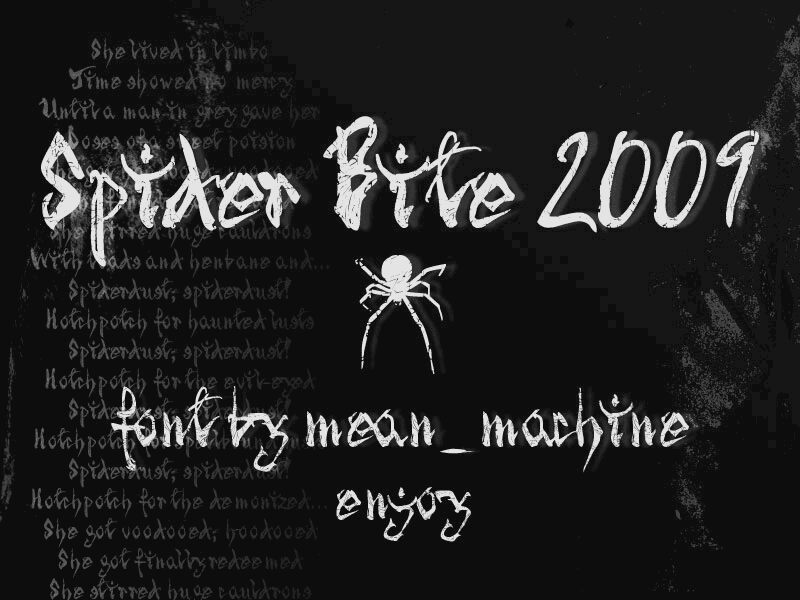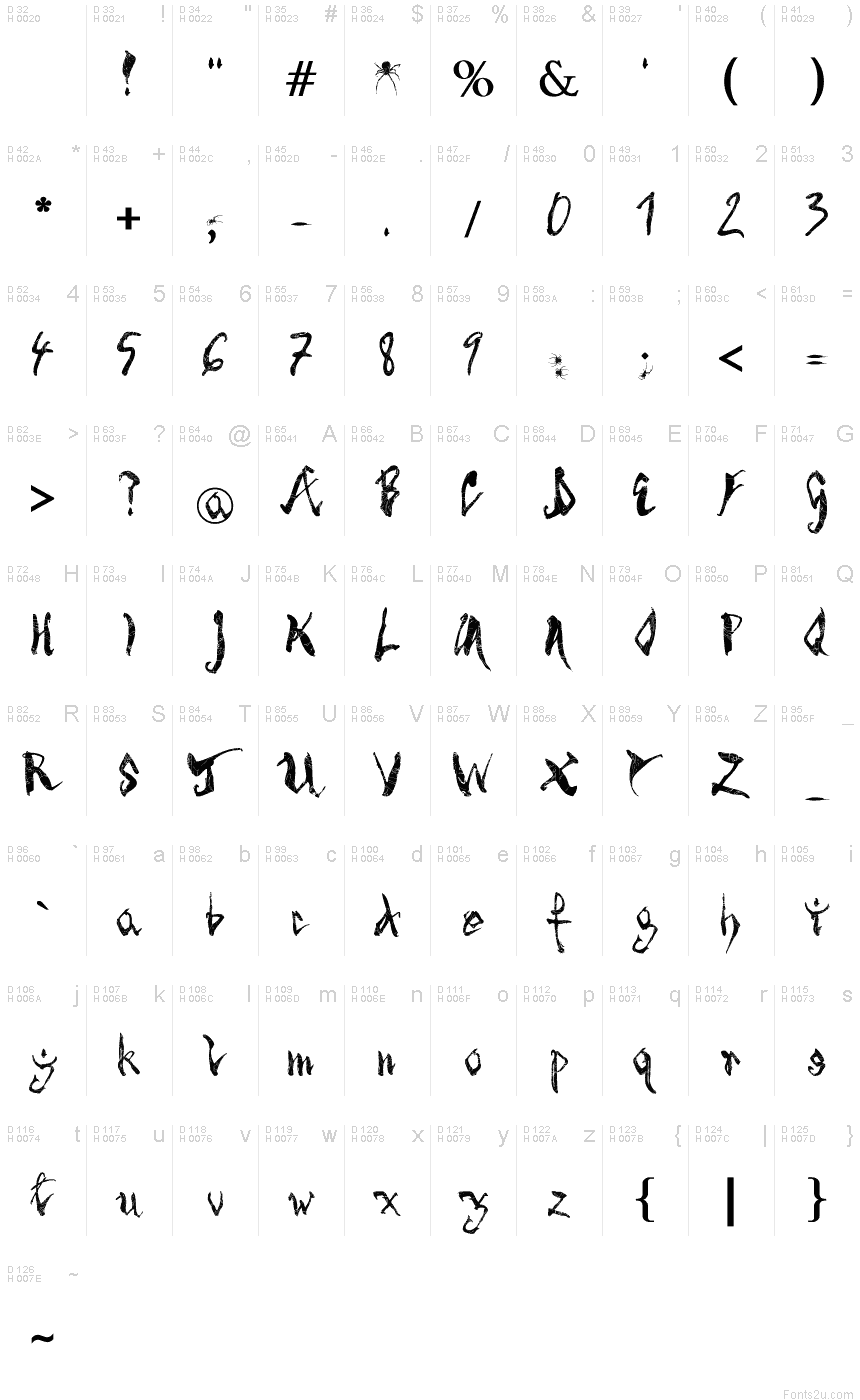
Spider Bite Bold by High-Logic.com is a free distressed brush display font with tall, slashing strokes and sharp, uneven curves. Its letters look hand-cut and weathered, with broken patches running through the forms and pointed details that give the writing a dark, restless edge.
Concert posters and fantasy game graphics suit the aggressive silhouettes, which resemble scratched ink or splintered metal. For Halloween event materials, craft beverage packaging, or streetwear merchandise, that fractured surface can become part of the product identity, echoing torn labels, etched illustrations, and dense distressed print textures.
Created in 2009.